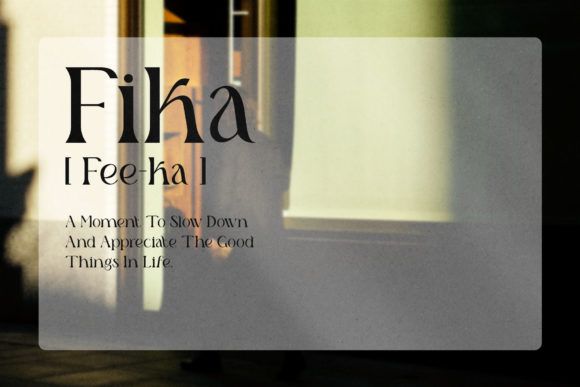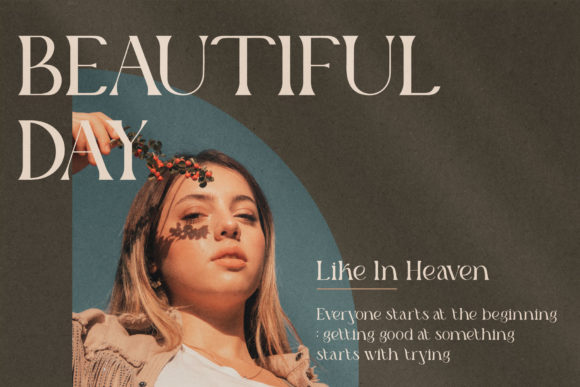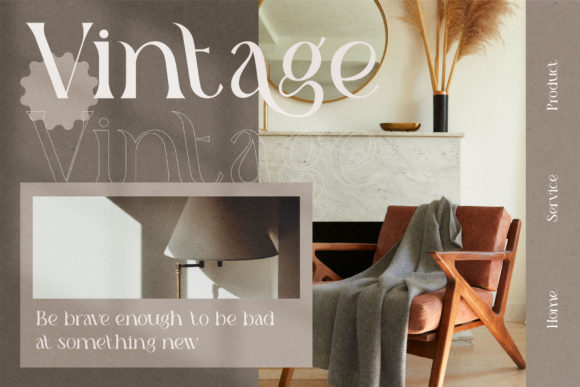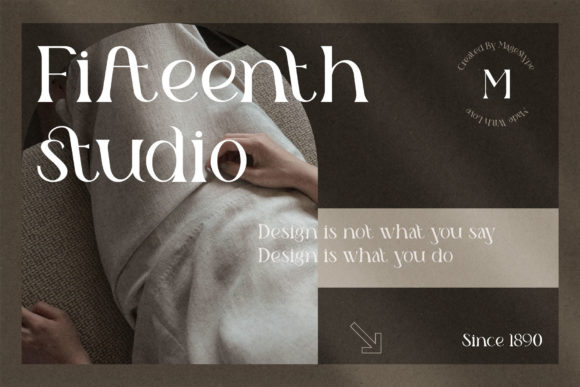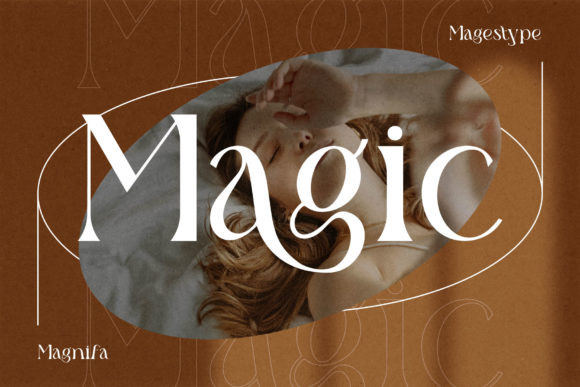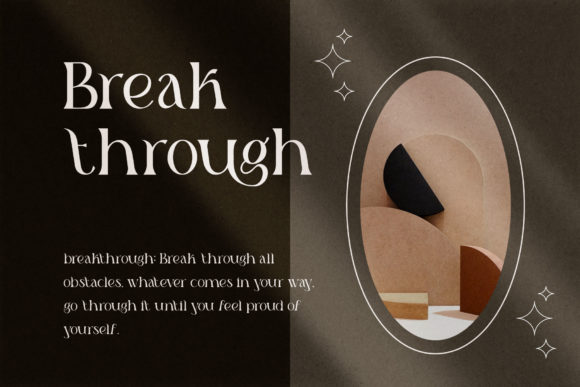
Introduction to Magnifa Font
Magnifa is a modern and elegant serif font.
Fall for its ravishing style and use it to create gorgeous wedding invitations, beautiful stationary art, eye-catching social media posts, and much more .
Key Features of Magnifa Font
Why Choose Magnifa Font?
Magnifa Font offers exceptional quality and versatility, making it a valuable addition to your design toolkit. Whether you’re creating for personal projects or commercial use, Magnifa Font delivers professional results.